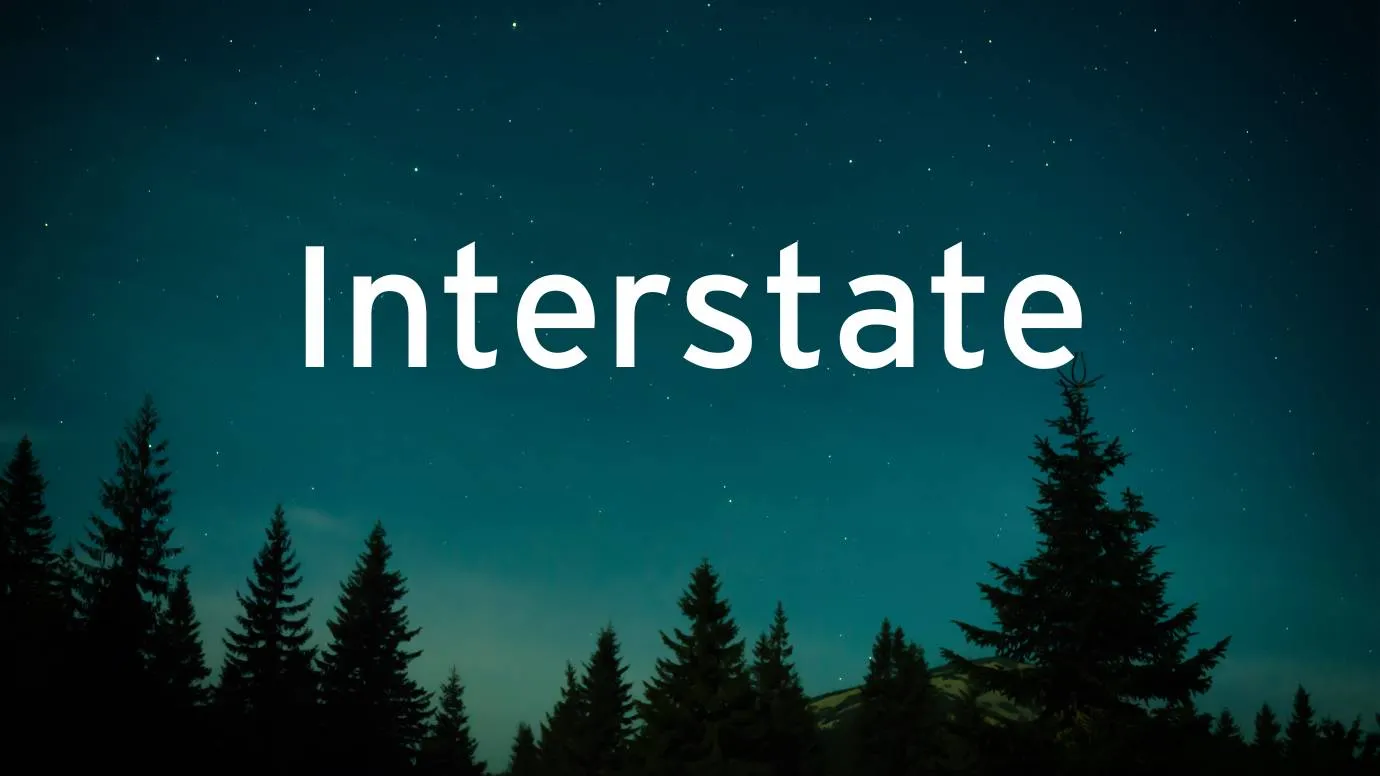
Interstate Font Family is the sans-serif typeface that was released in the year 1990 and the styling of this typeface has been done by American typeface designer Tobias Frere-Jones. The use of this font makes the content readable and legible.
This font along with the pair of vampiress font is being used by many famous organizations in their branding and promotion projects.
Interstate Font Family